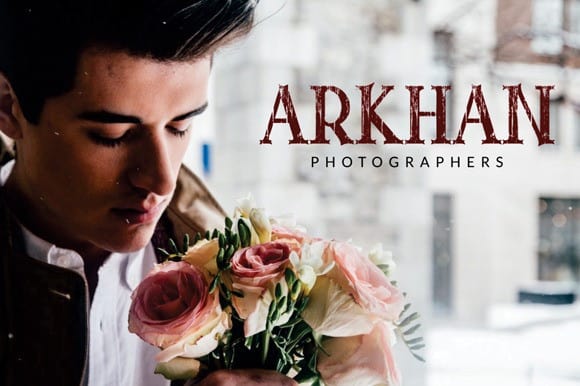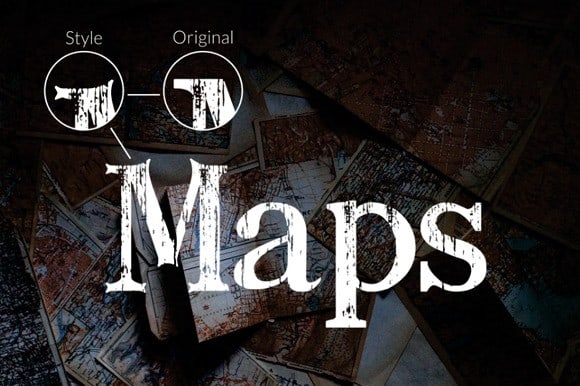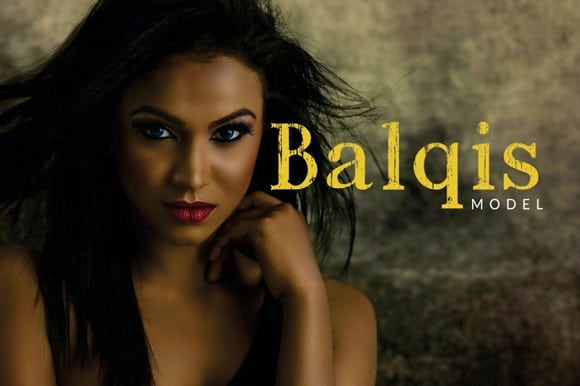
Hello everyone. Athoor Style Brush Clean is a bold and unique serif display font. This typeface is designed and shared by suamzu.art. It comes with a full uppercase, lowercase, numbers and punctuation + European language support. it’s perfect for logos, name card, magazine layouts, invitations, headers, or even large-scale artwork. Add this font to your creative ideas and notice how it will make them stand out!